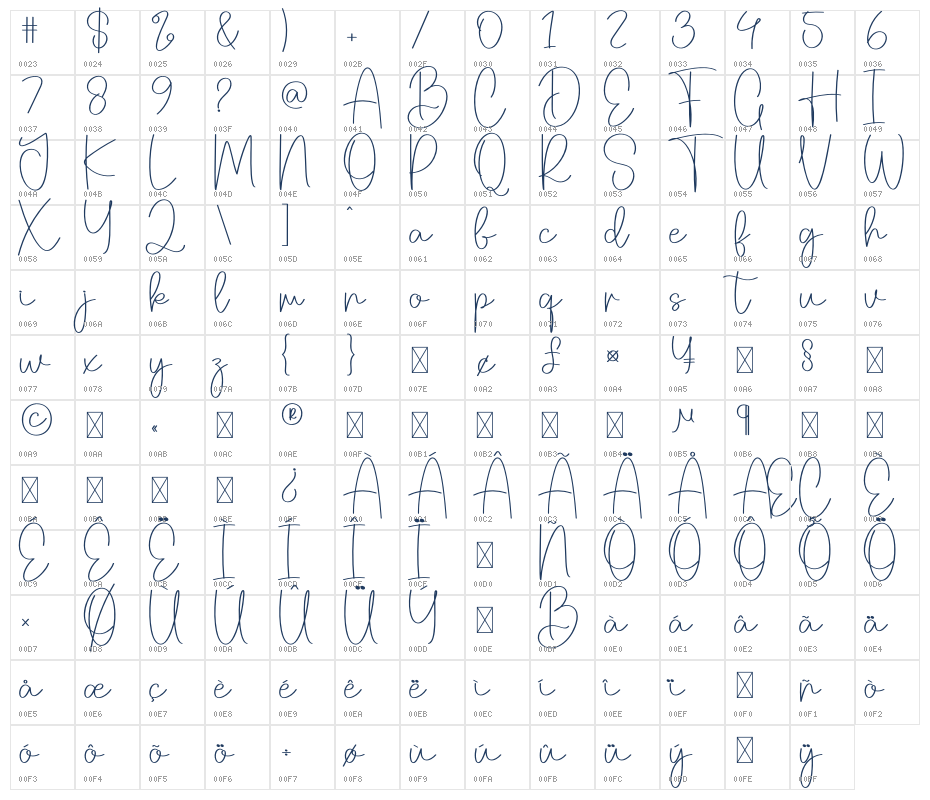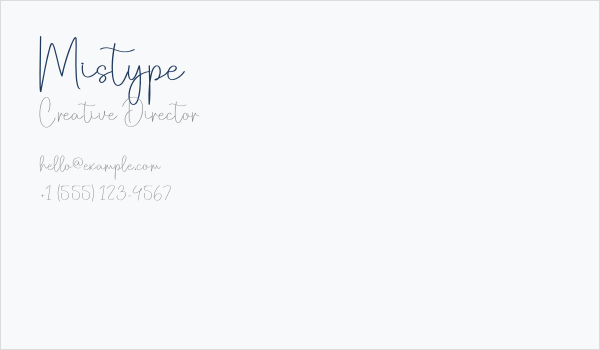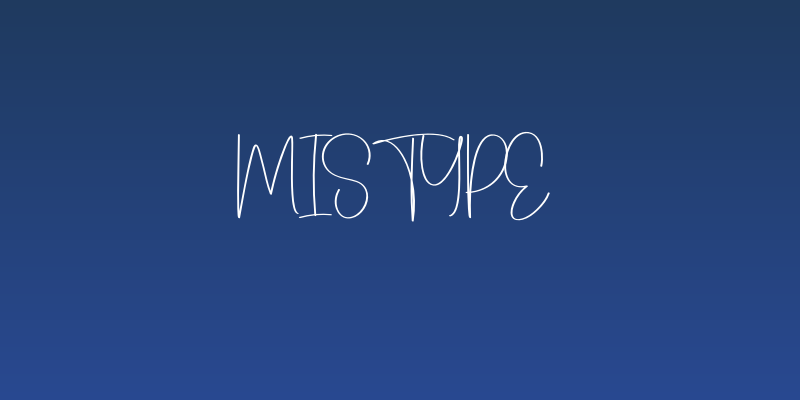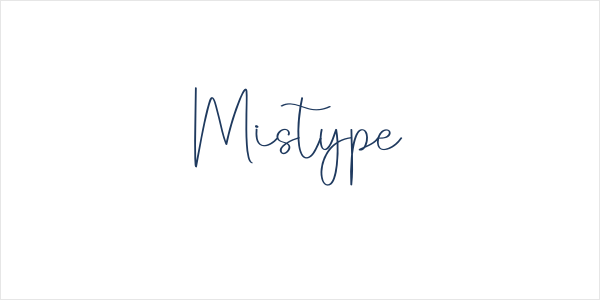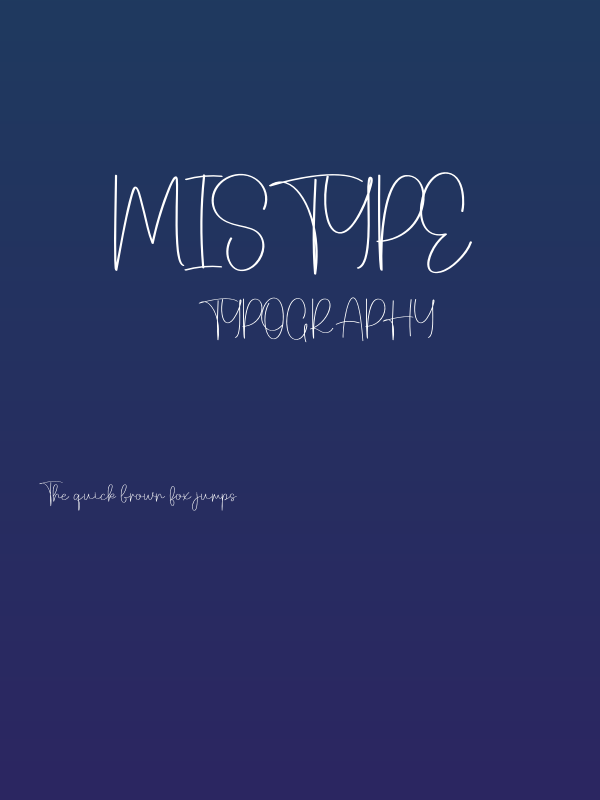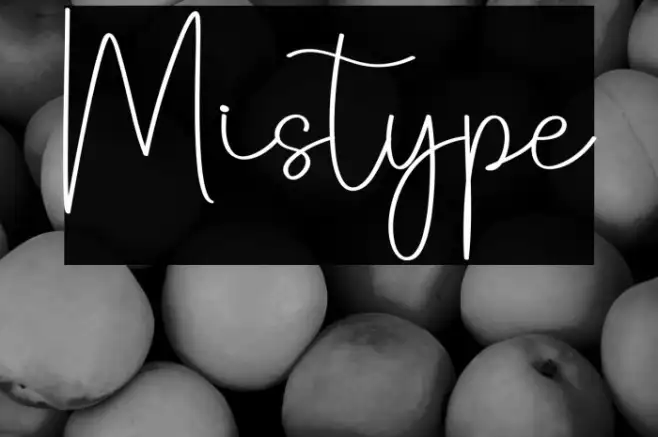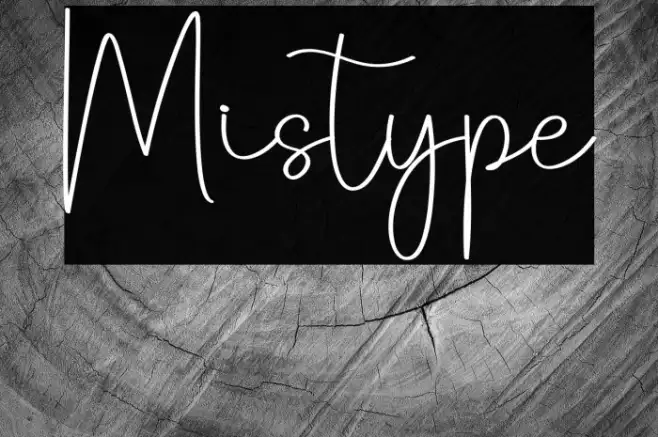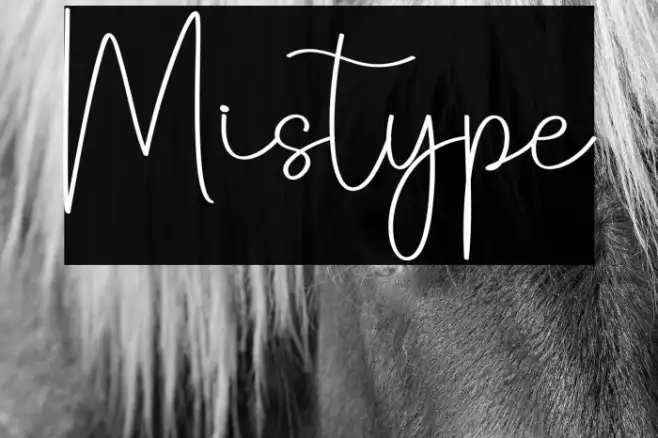
Mistype Font
Mistype Description
A handwritten, cursive style font with a casual, flowing appearance, featuring thin, elongated strokes and a playful, informal vibe.
| Overall Style | Casual, Handwritten, Playful |
| Use Case | Invitations, Greeting cards, Personal branding, Creative projects |